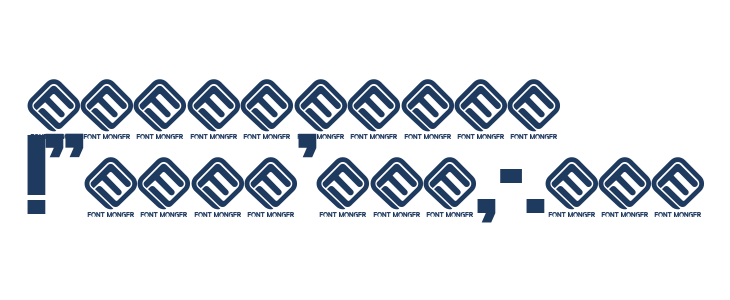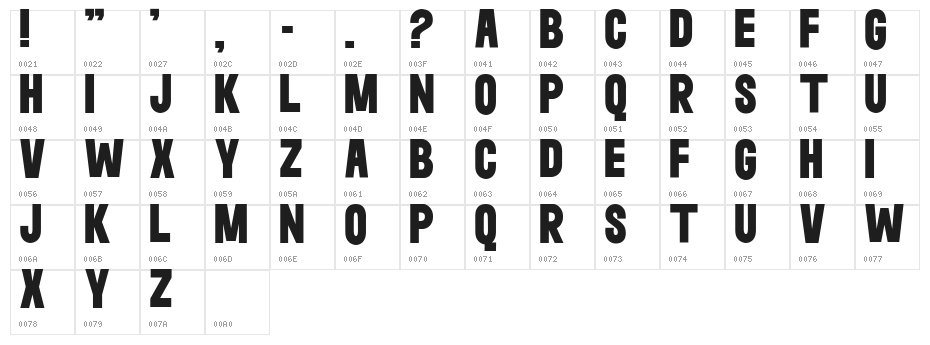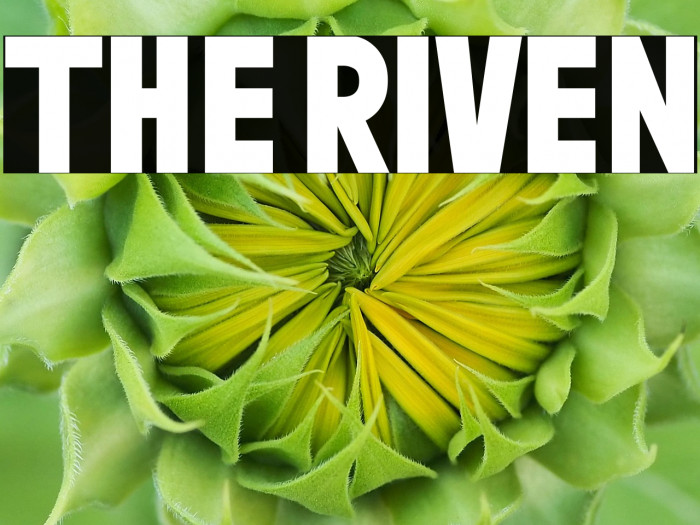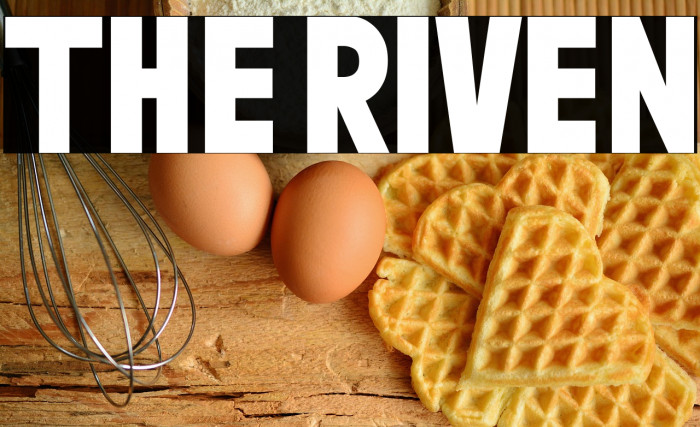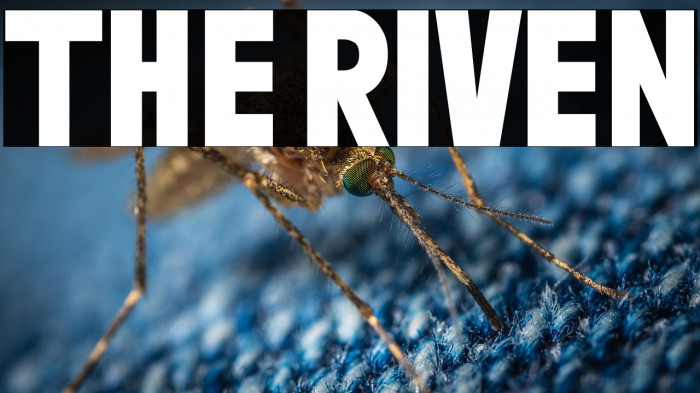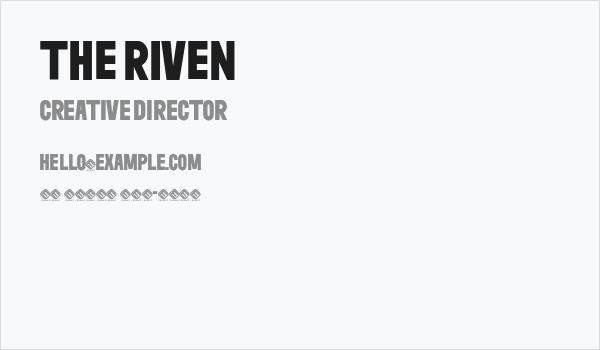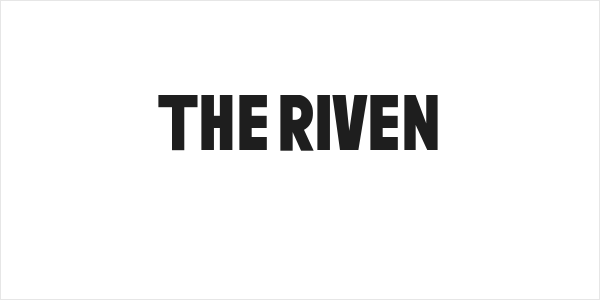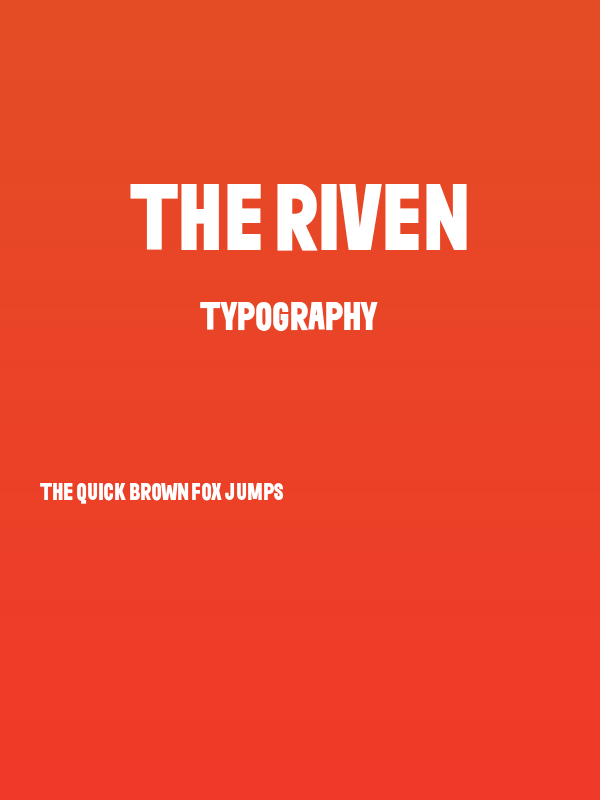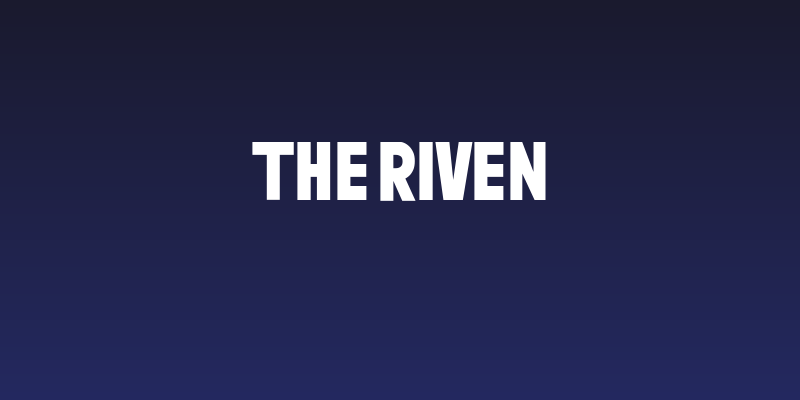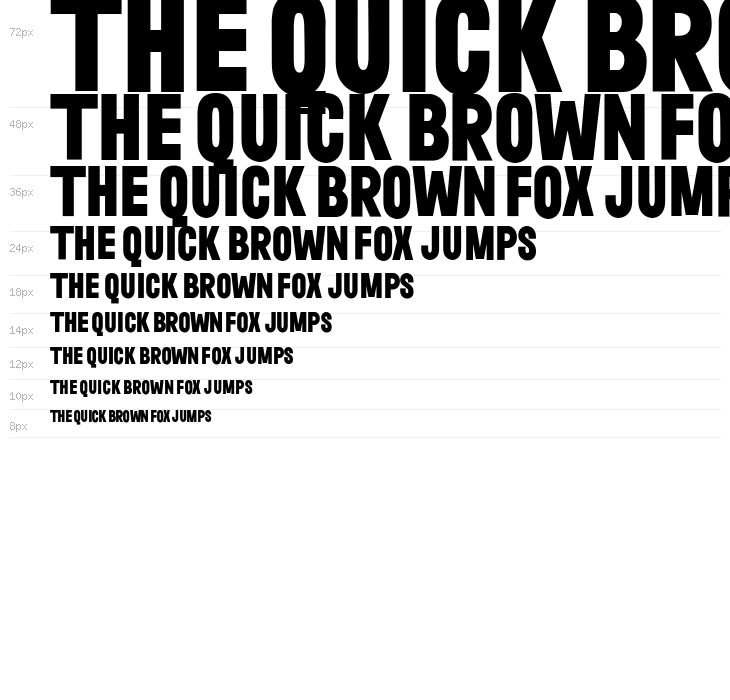
The Riven Font
The Riven Description
This font features a bold and impactful design, characterized by thick, uniform strokes that create a strong visual presence. The uppercase letters are robust and commanding, making them ideal for attention-grabbing headlines. The font maintains a consistent weight throughout, ensuring readability and clarity. Its geometric structure and clean lines give it a modern and professional appearance, suitable for a variety of design applications. The absence of serifs contributes to its contemporary style, while the tight character spacing enhances its compact and dense look.
| Proposed Projects | Ideal for branding, advertising, posters, and any design requiring a strong visual impact. |